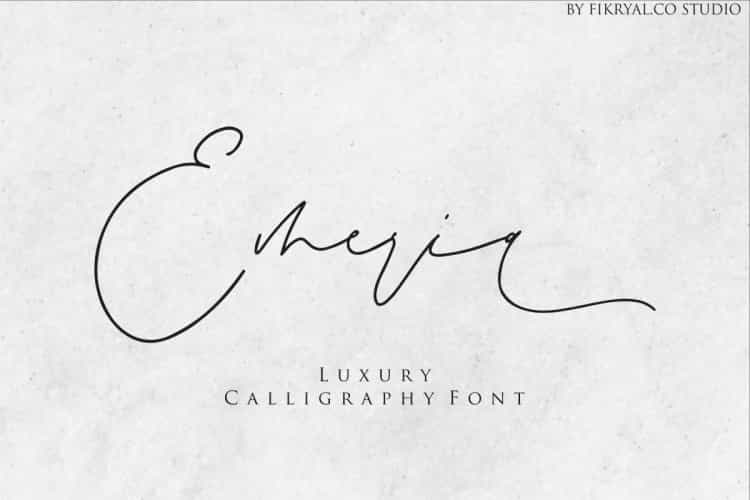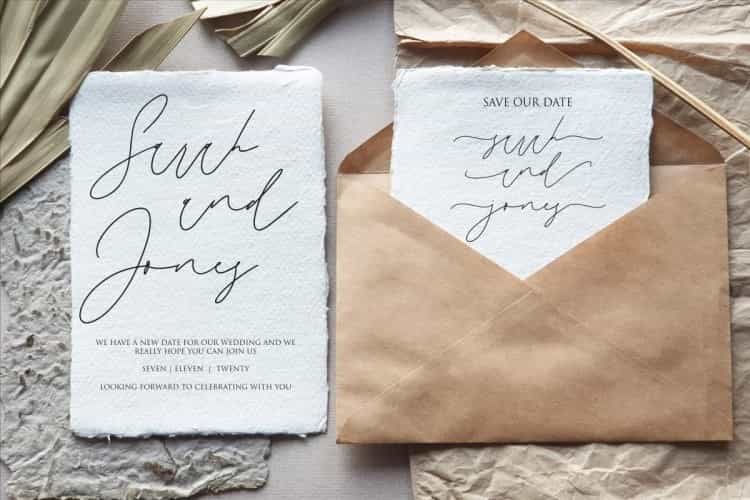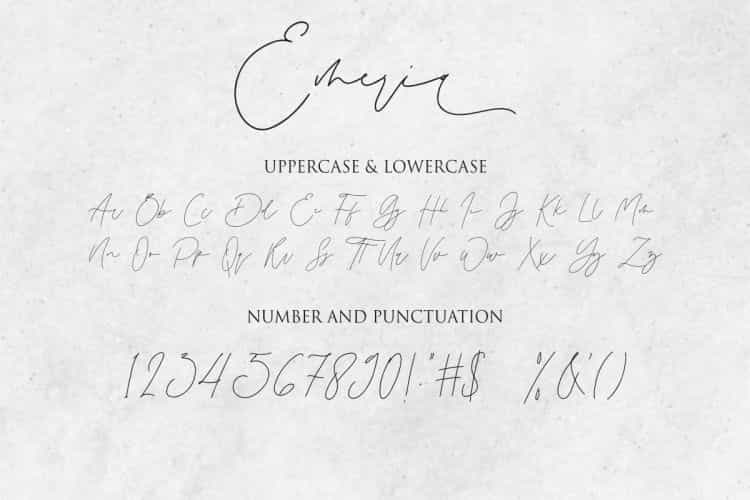
Discover Emeria Luxury Calligraphy Font, part of the Calligraphy Handwritten collection—a versatile and unique font perfect for adding a personal touch to your projects. Download it for free and enjoy crafting designs with style, from invitations to social media posts. This font is available exclusively for personal use, giving you the freedom to create without limits. Unlock your creativity with Emeria Luxury Calligraphy Font today!
Emeria is a Calligraphy font. It is Ideal for logo, branding, invitation, tittle, wedding designs, social media posts , advertisements product packaging product designs label photography water mark special event magazine web design etc.